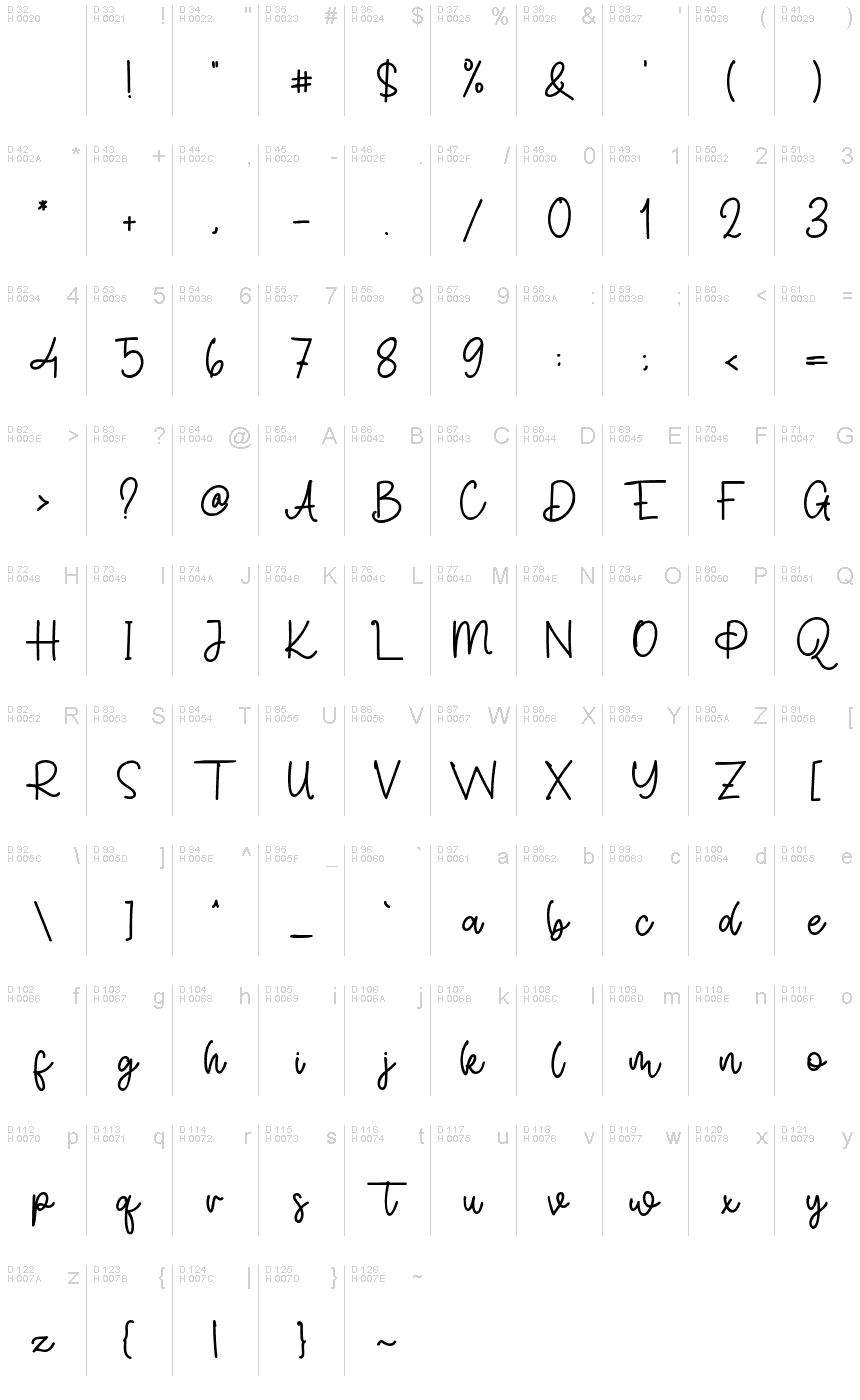
Simon Allice
Meet Simon Allice, the semi-light modern monoline font created by Kong Font. With its unique handwritten style, Simon Allice is the perfect typeface for creative projects looking to add a touch of personal flair. The font's clean lines and easy legibility make it ideal for branding materials, social media graphics, and even wedding invitations. Whether you're designing a minimalist logo or creating a whimsical poster, Simon Allice has got you covered with its versatile and playful aesthetic. Give your designs that extra spark with this stylish font today!